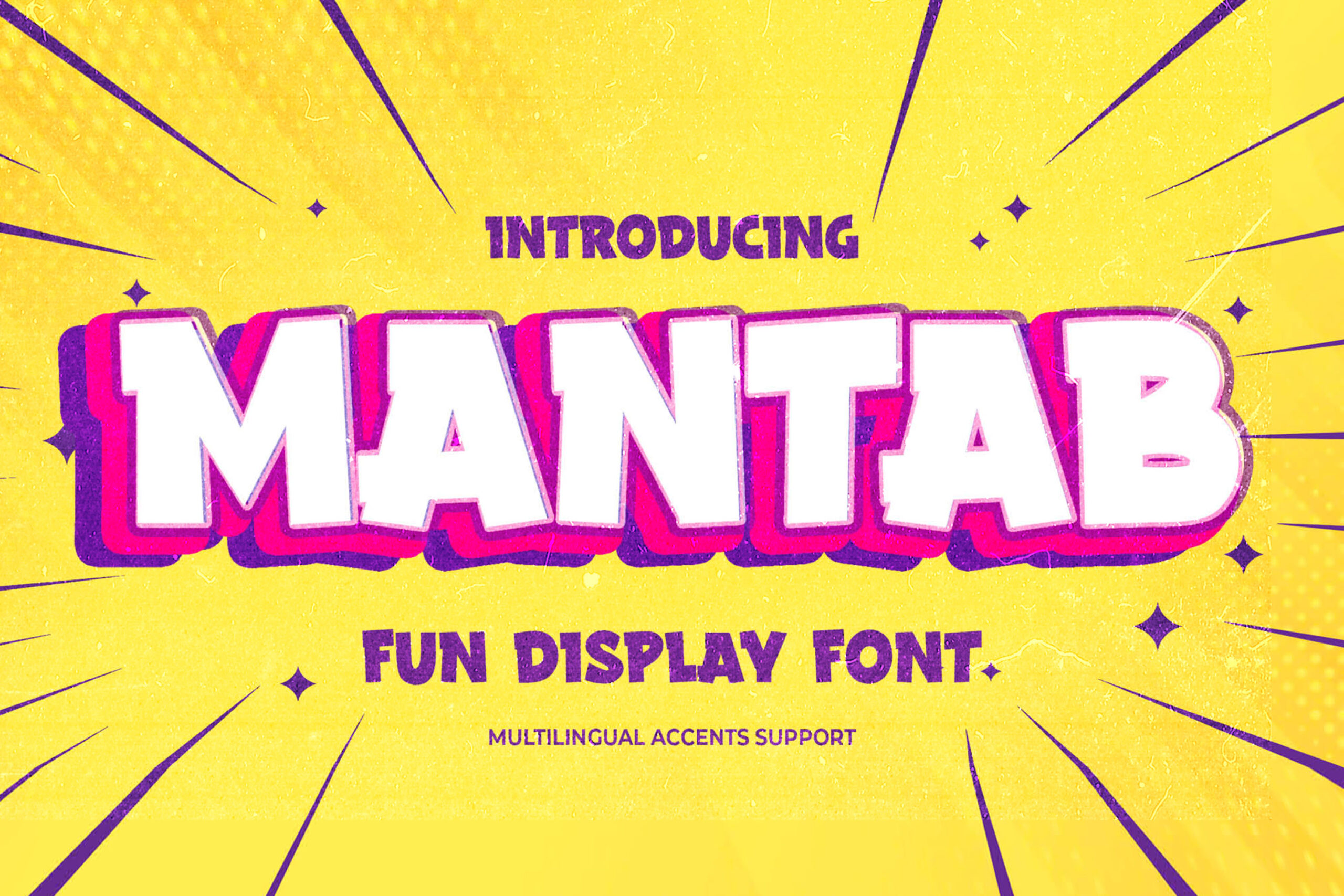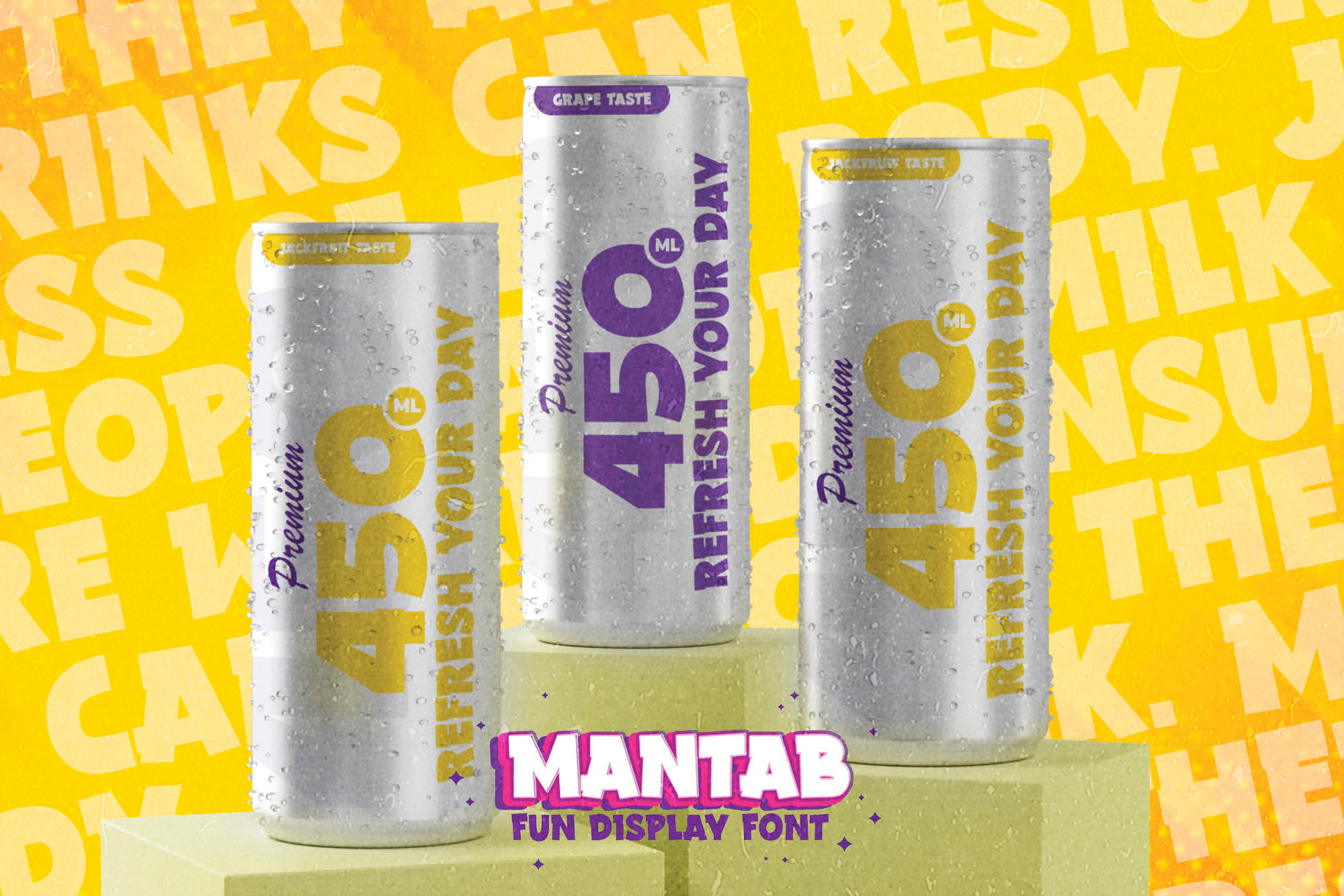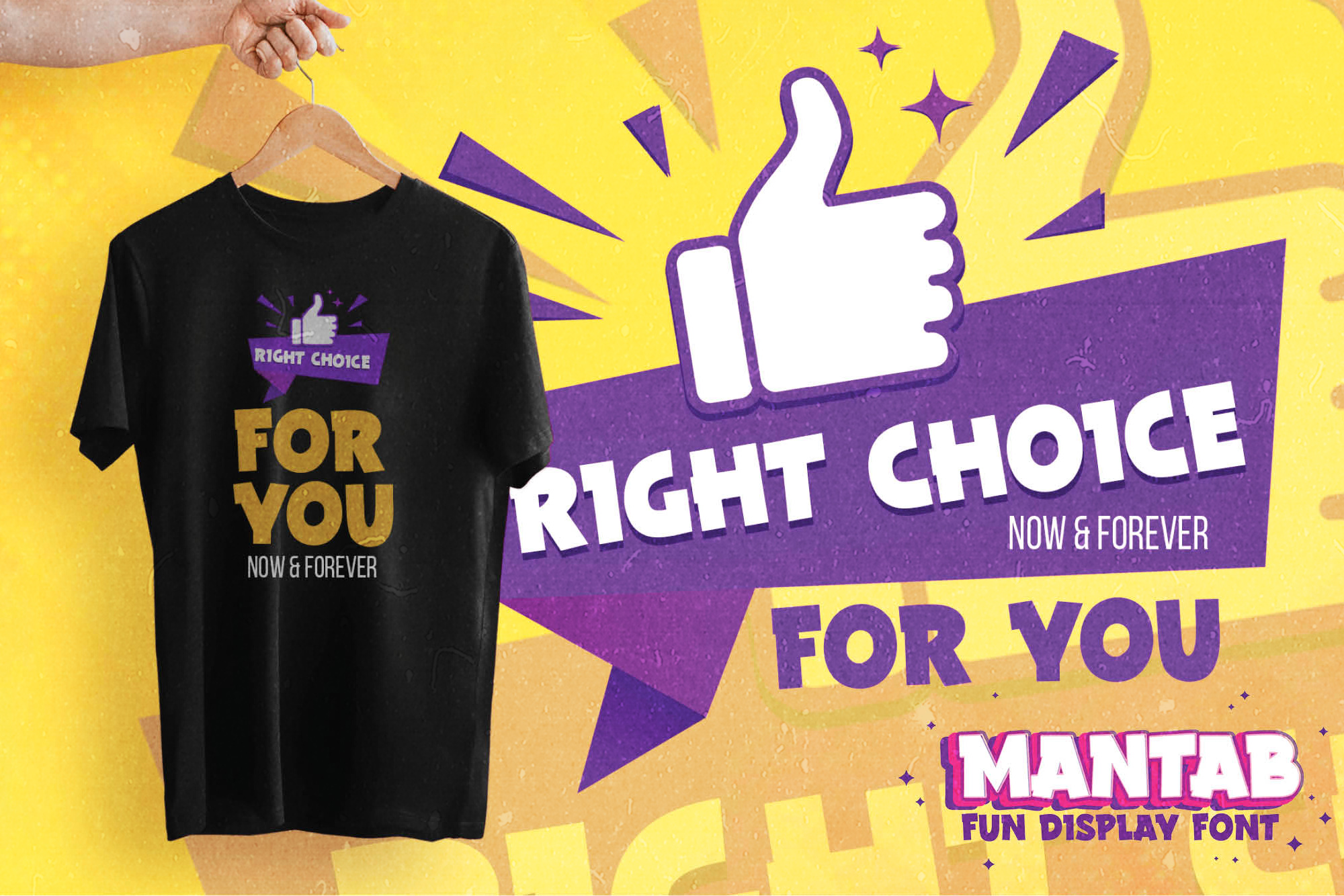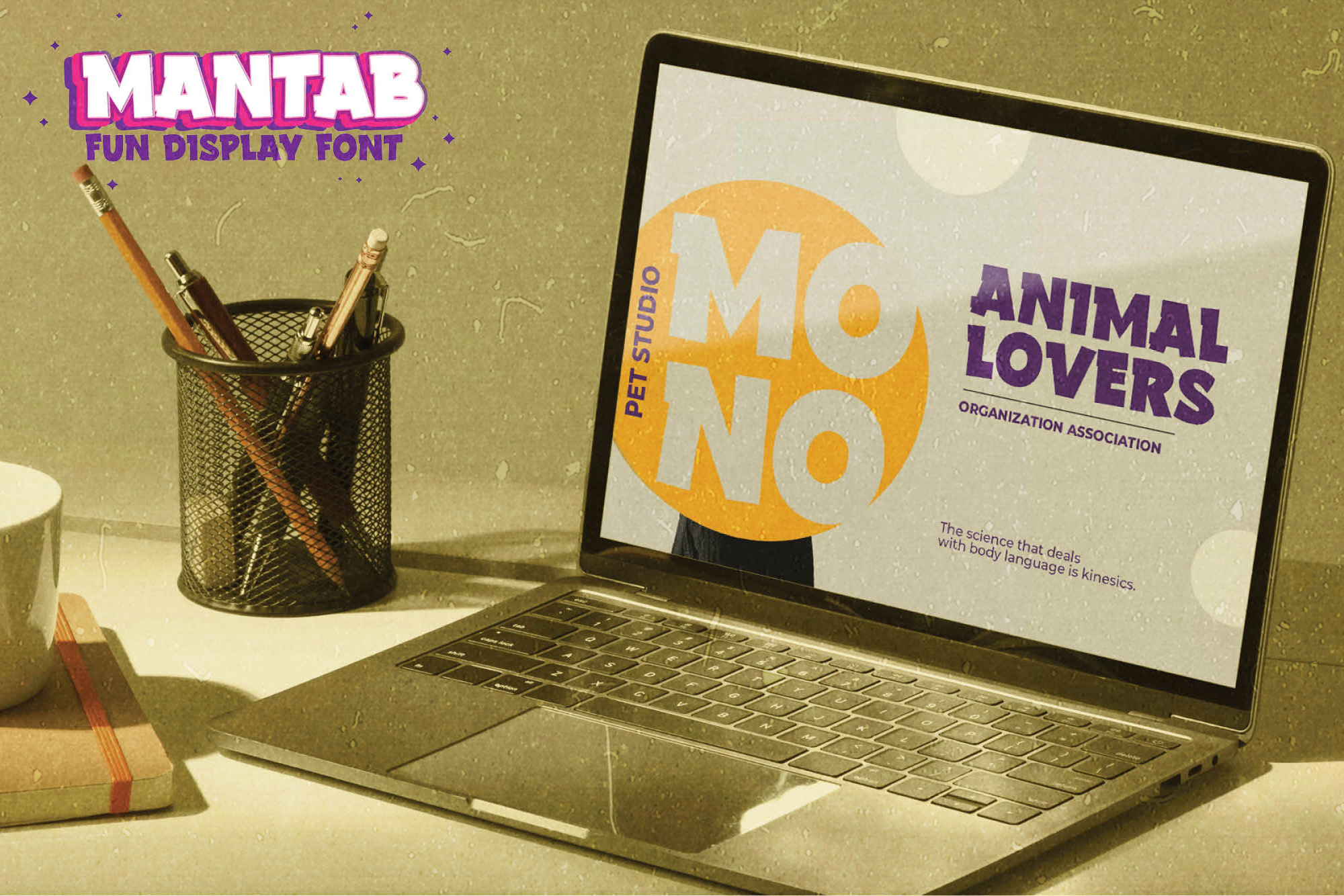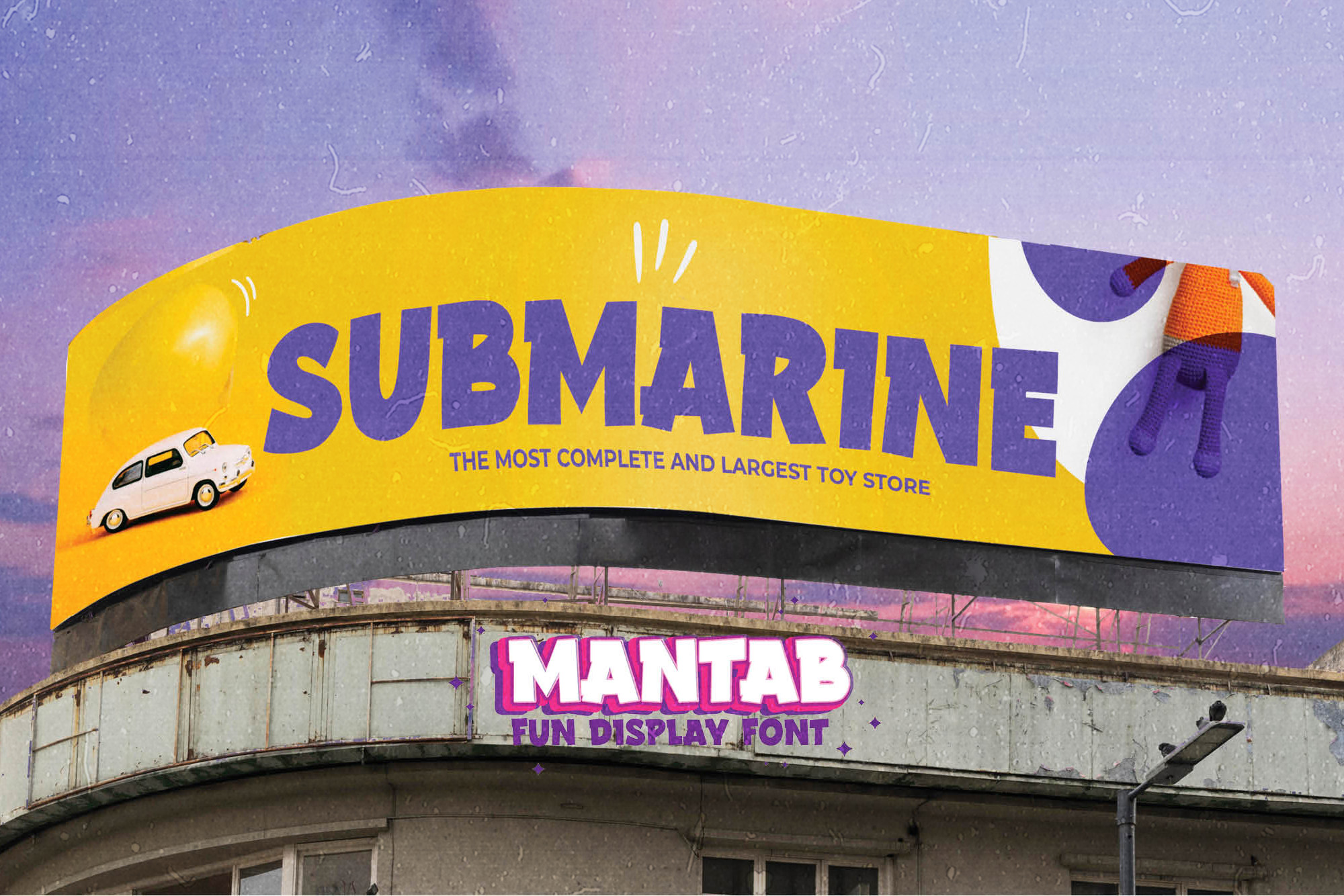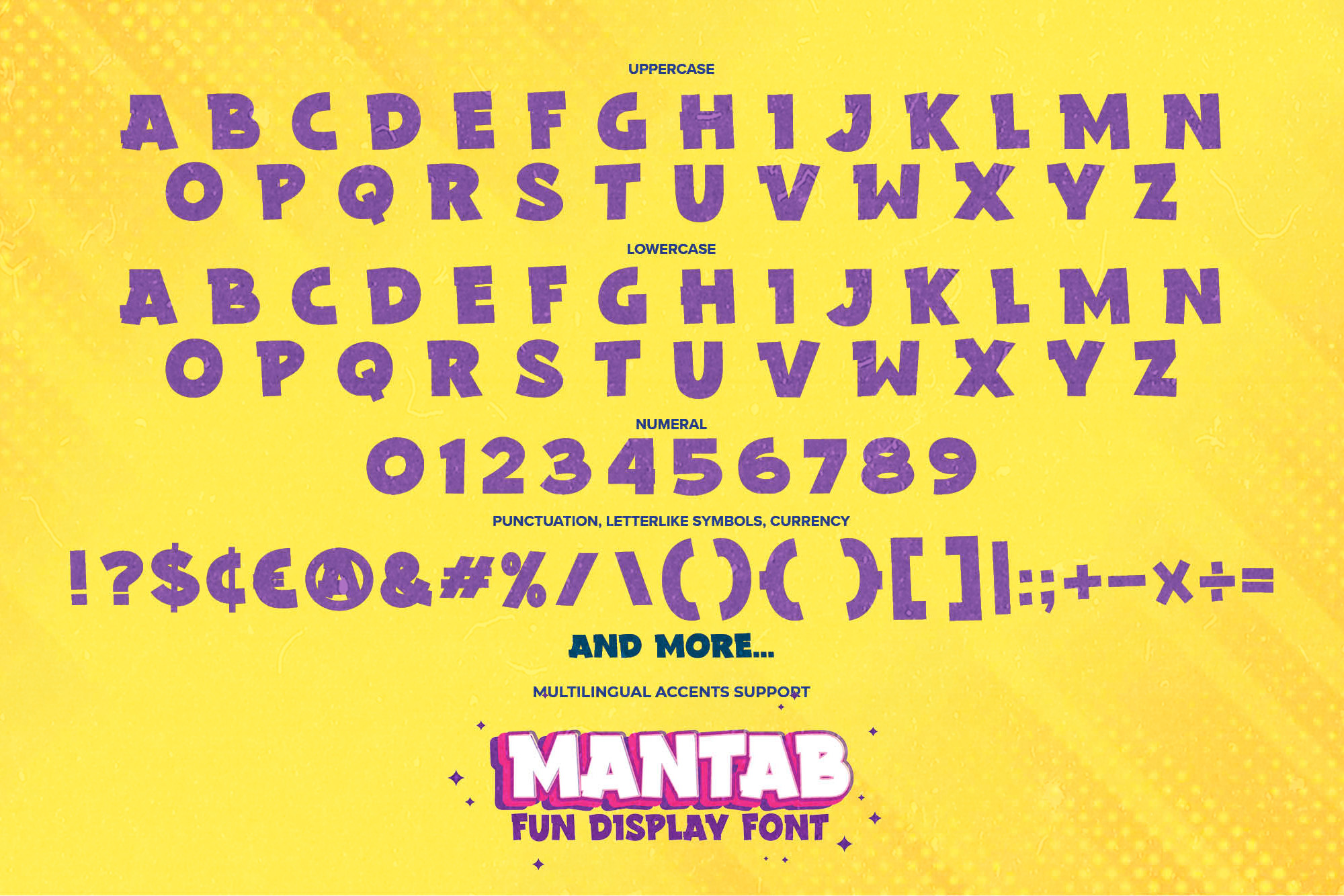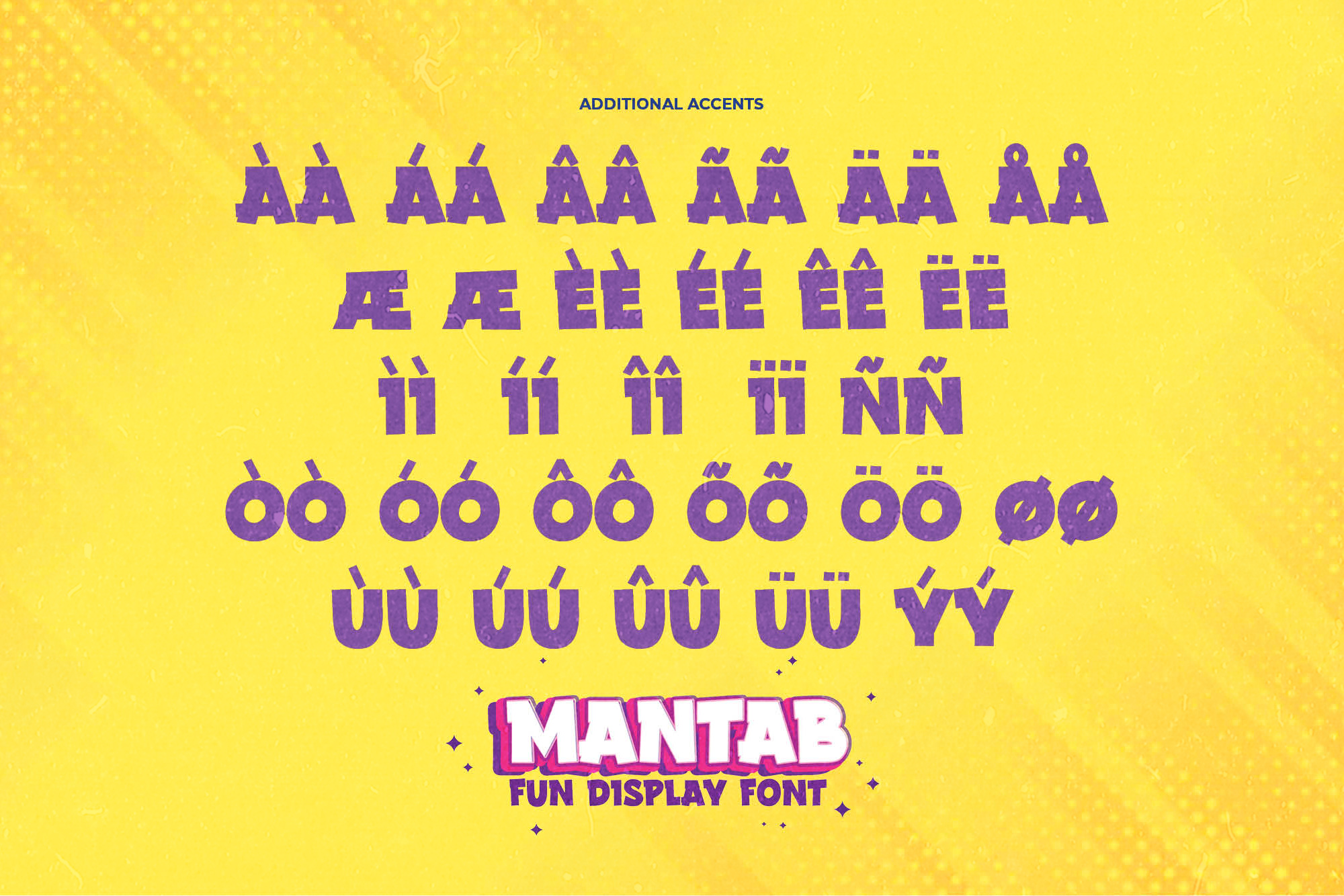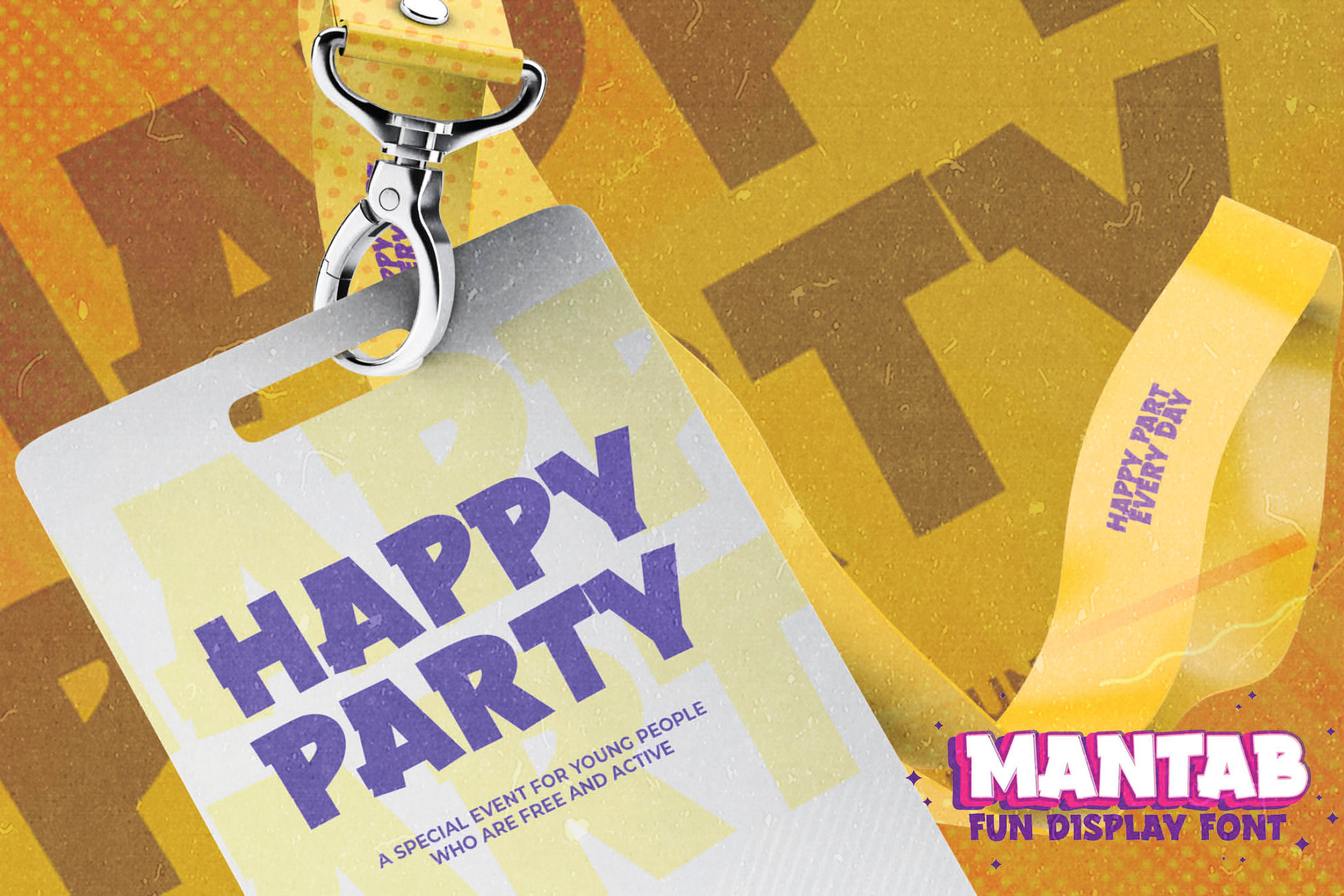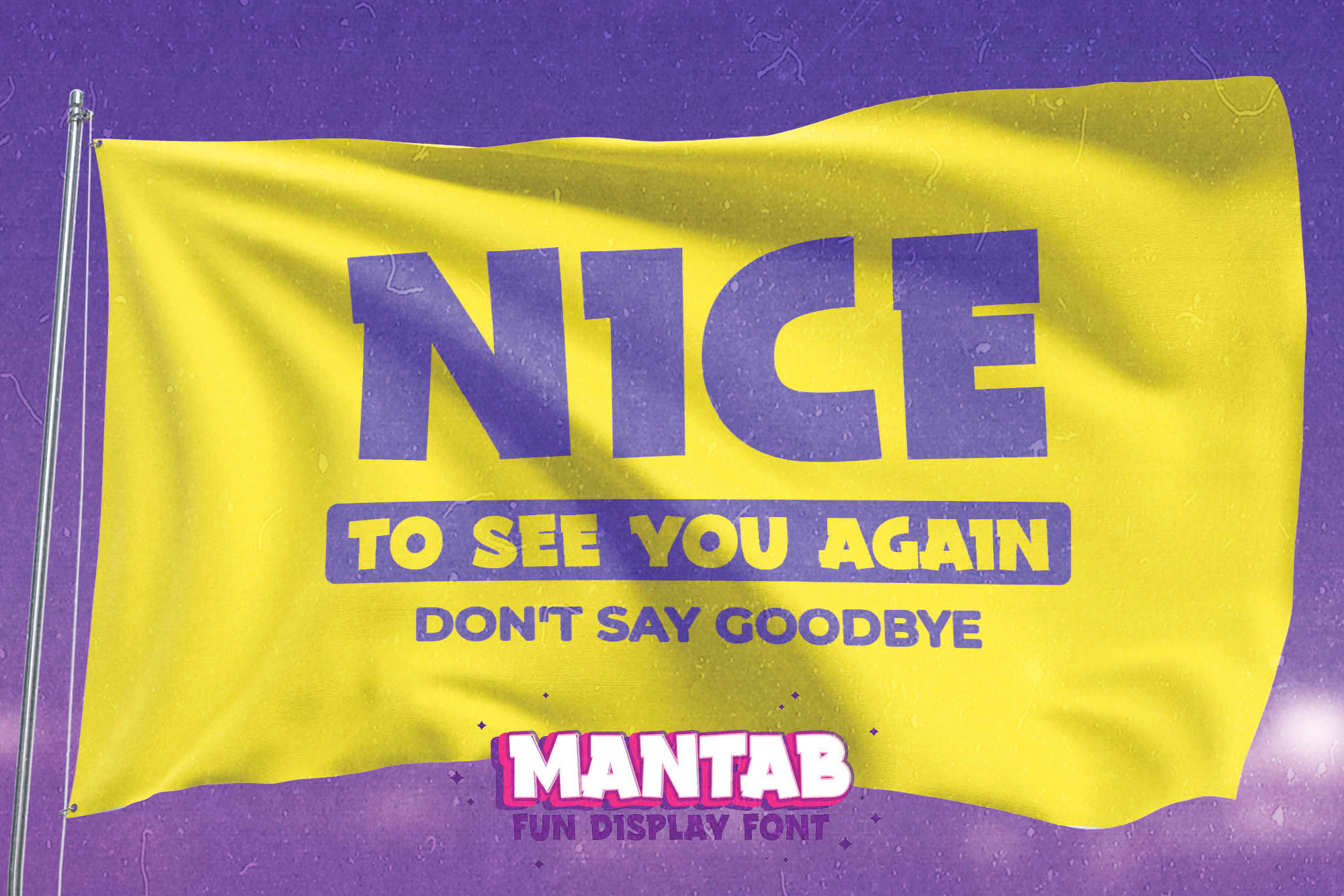
MANTAB – Fun Display Font, modern style and dramatic movement that is written casually and quickly.
The best for labels,poster,project , designs look modern, authentic and unique. It’s perfect for labels, quotes, posters, DIY projects, branding, packaging, greeting cards, websites, photography overlays, signs, scrapbooking, tags and so much more! That is why MANTAB has a textured, and unique characteristic more natural look.